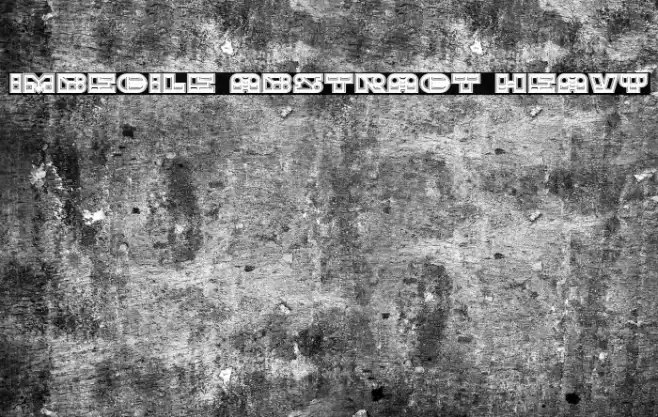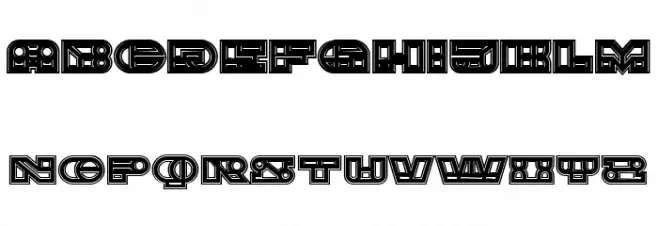
Imbecile Abstract Heavy Font
Imbecile Abstract Heavy Description
This font features a bold and abstract design with heavy geometric elements. Each character is constructed with thick lines and intricate patterns, creating a sense of depth and complexity. The uppercase letters are particularly striking, with unique shapes that incorporate both solid and outlined sections. The font's style is reminiscent of futuristic or digital aesthetics, making it stand out in any design. Its boldness and decorative nature make it suitable for eye-catching headlines or artistic projects. The characters are evenly spaced, ensuring readability despite their elaborate design.
A bold, abstract font with geometric and futuristic elements from Uncategorized fonts.
- Font: Imbecile Abstract Heavy
- Weight: Heavy
- Proposed Projects: Ideal for digital art, futuristic branding, posters, and creative headlines.
- Overall Style: Futuristic, Decorative